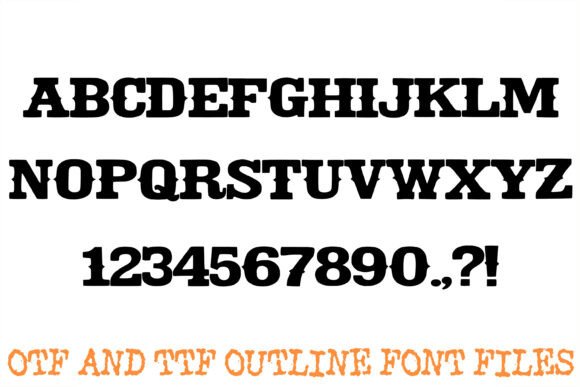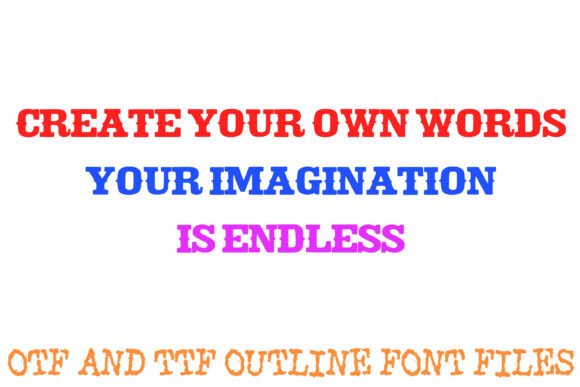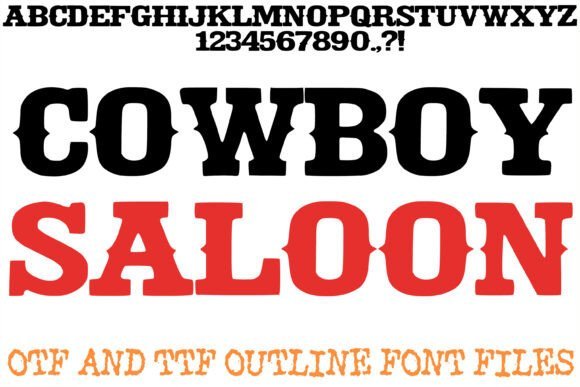
Introduction to Cowboy Saloon Font
The Cowboy Saloon Font is a bold, high-impact display typeface inspired by the sharp-edged aesthetics of vintage frontier signage and classic saloon posters.
Featuring strong slab serifs and decorative side spurs, this font is a premier choice for designers working on Western-themed branding, rodeo flyers, heritage apparel, and traditional pub menus The design captures a sturdy, mid-century frontier energy, where every character is built with a rugged and authoritative presence.
Key Features of Cowboy Saloon Font
Why Choose Cowboy Saloon Font?